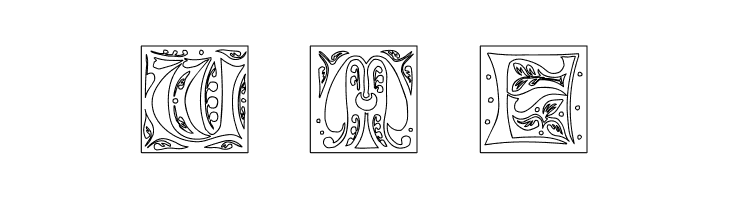
Marsh Thing Condensed Italic Font
- Font: Marsh Thing Condensed Italic
- Weight: Condensed Italic
An ornate, medieval-inspired font with intricate decorative frames.